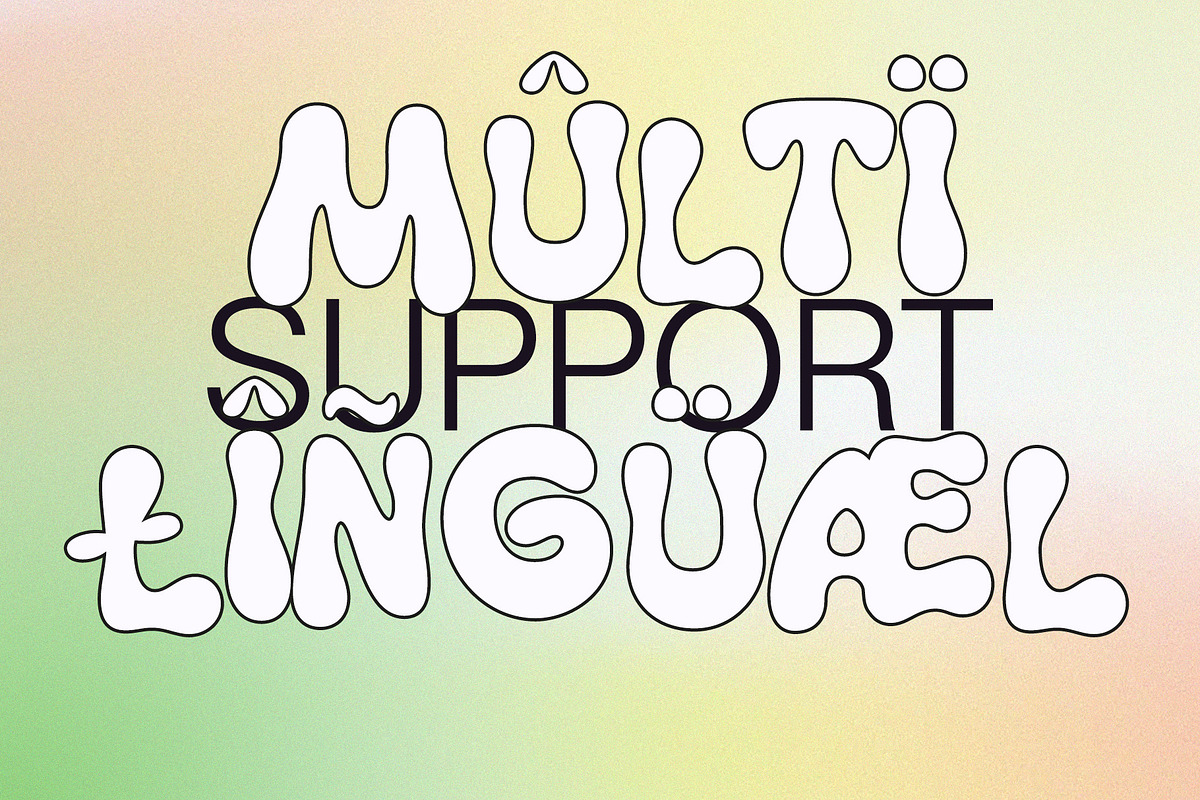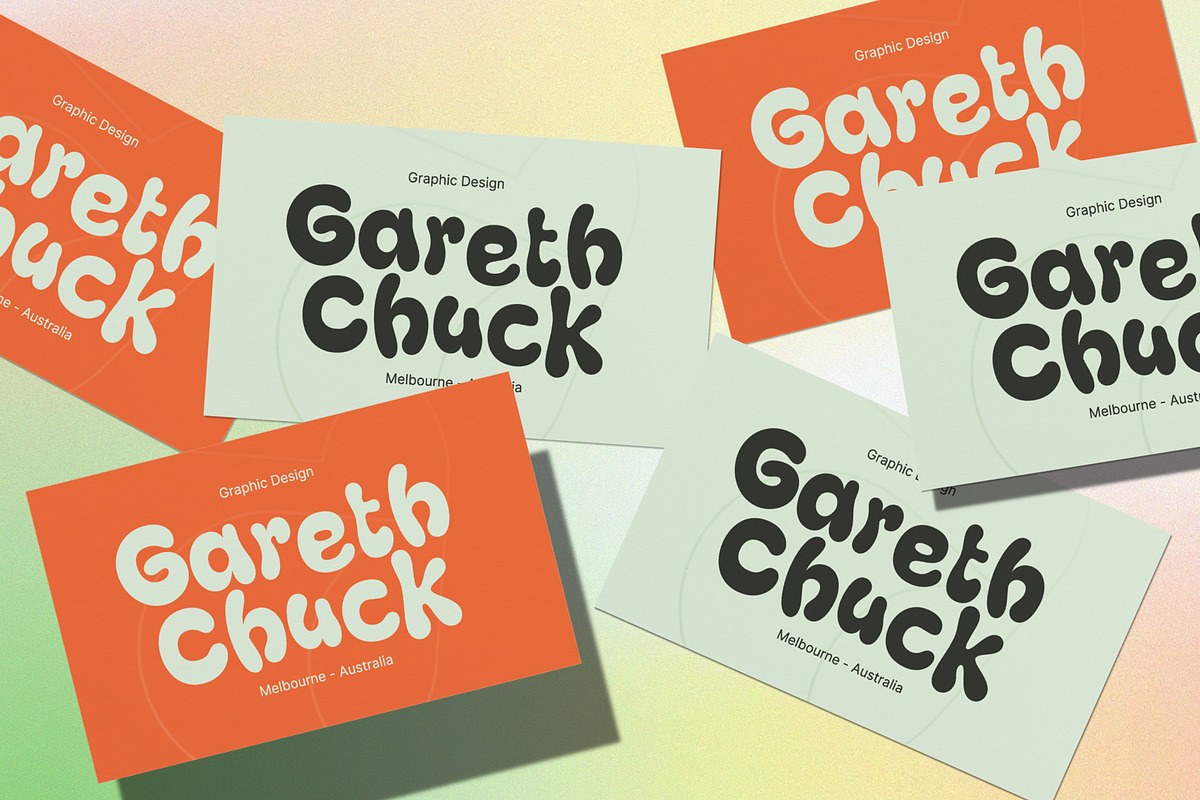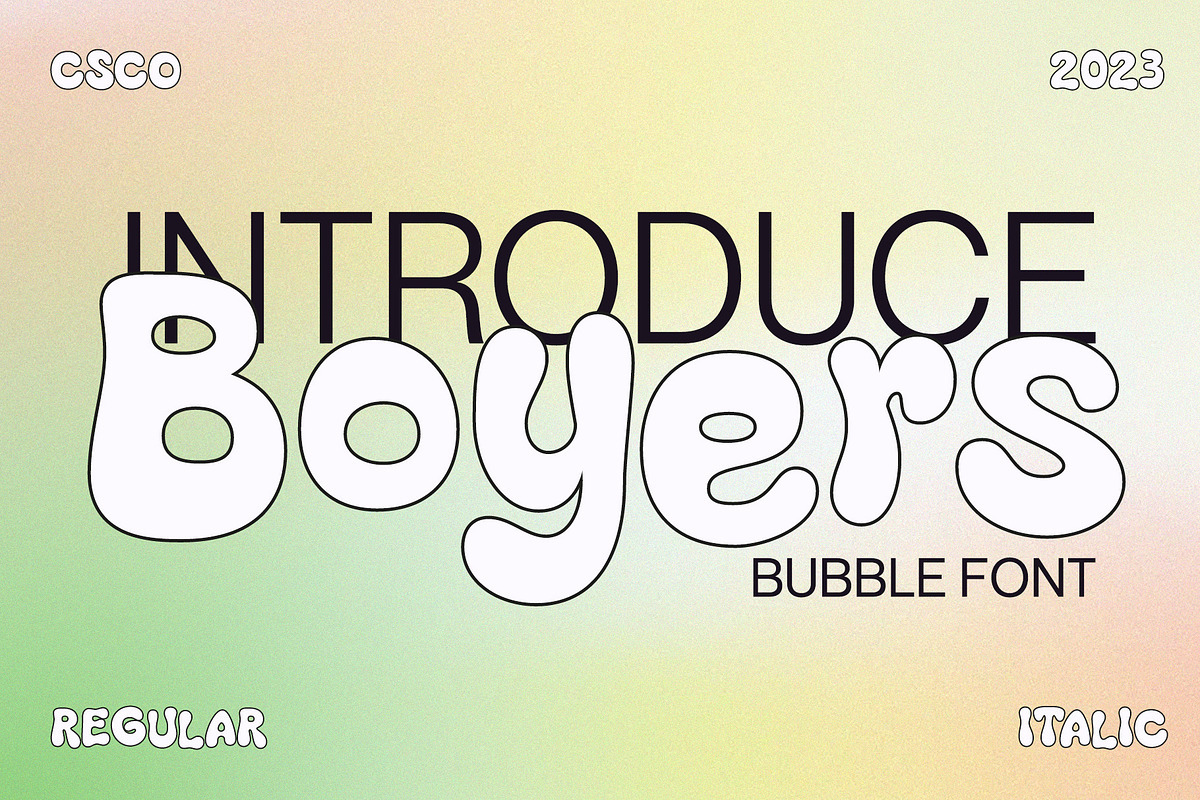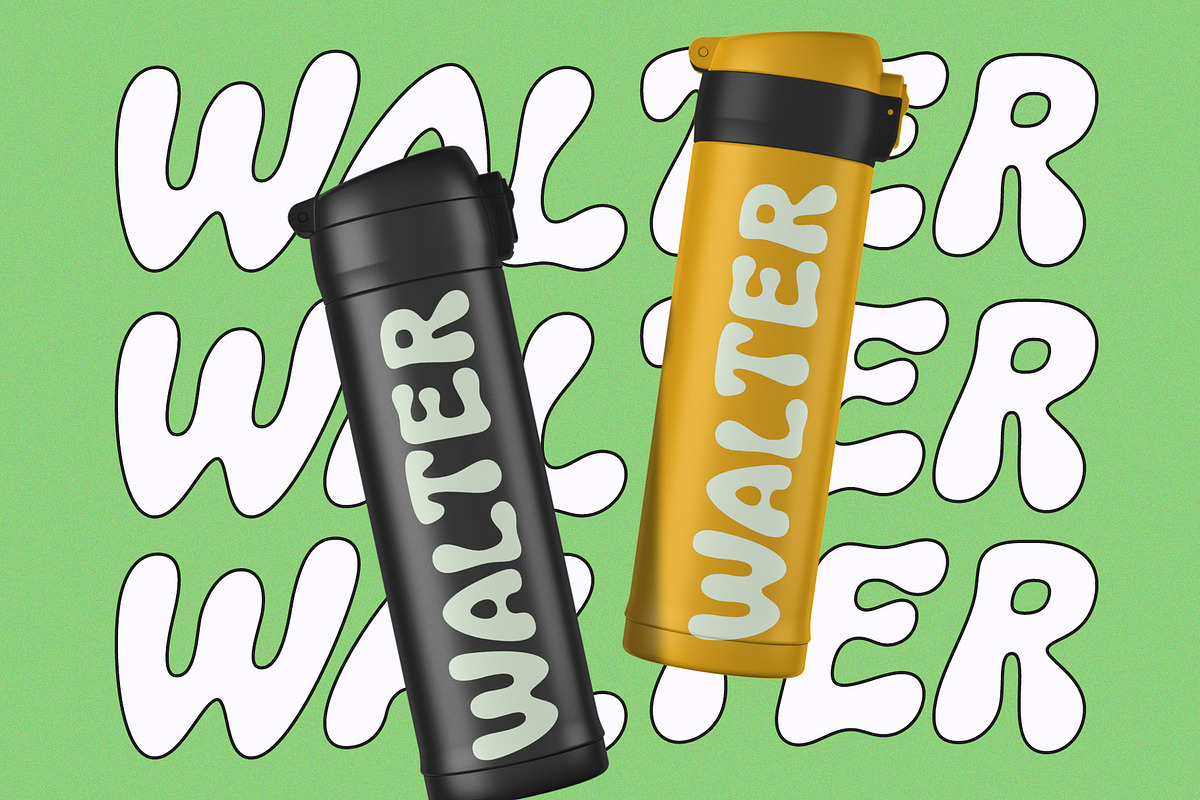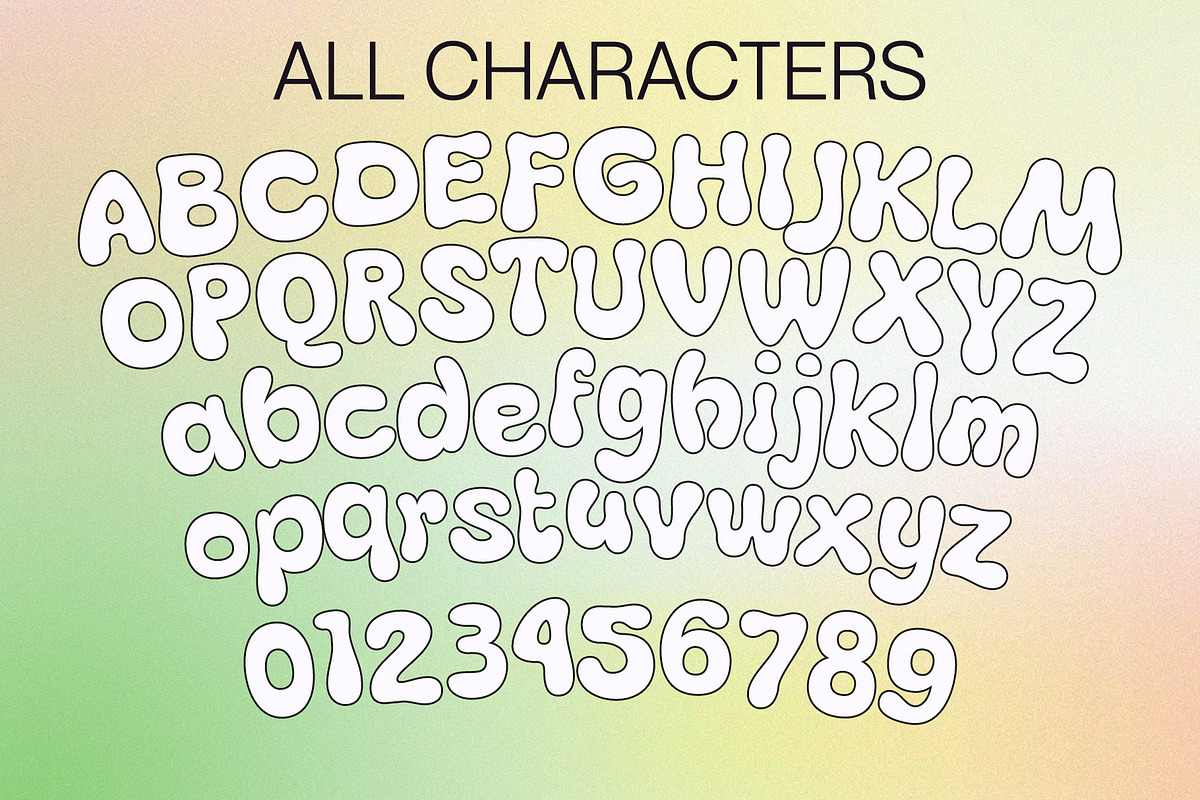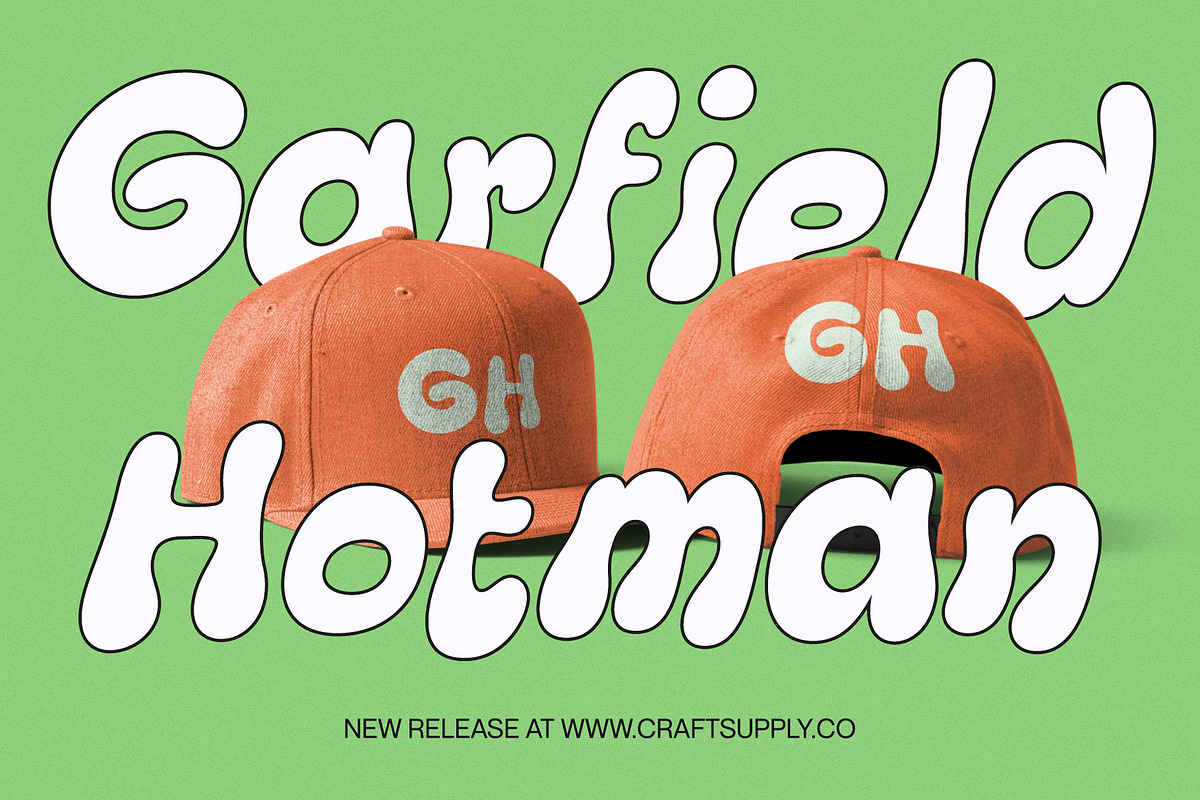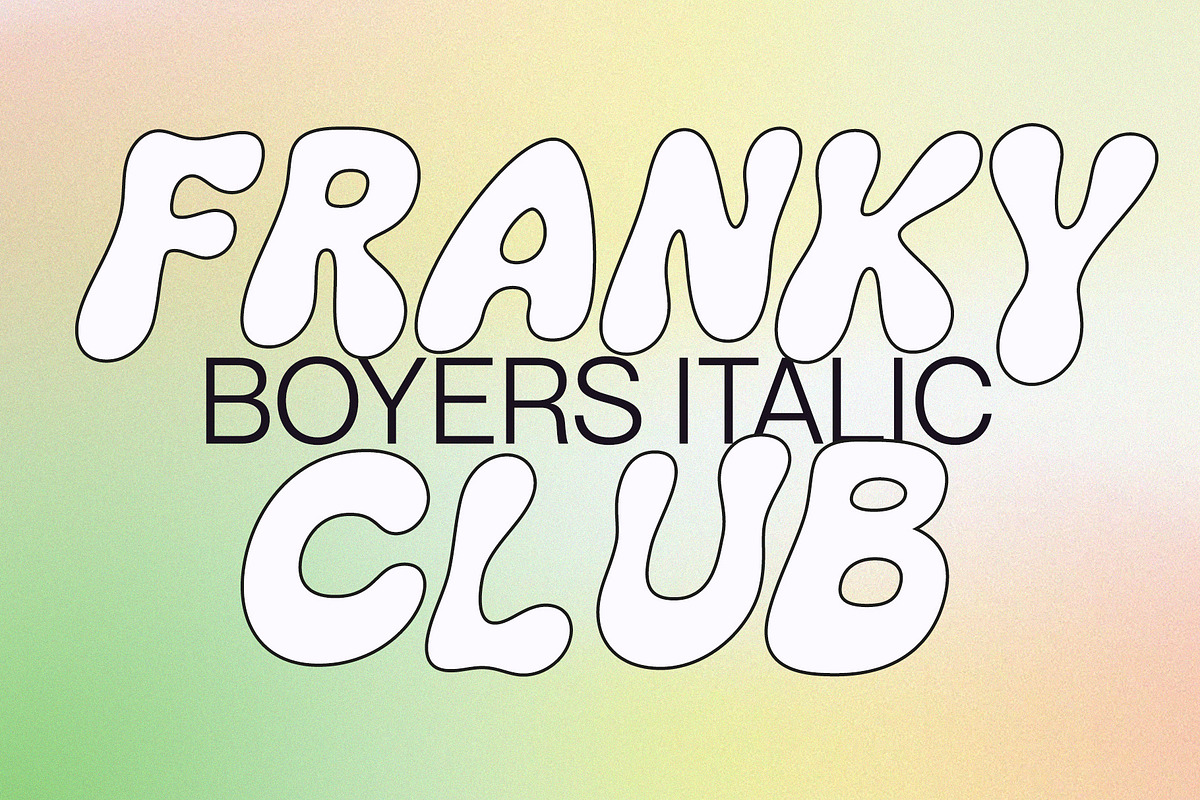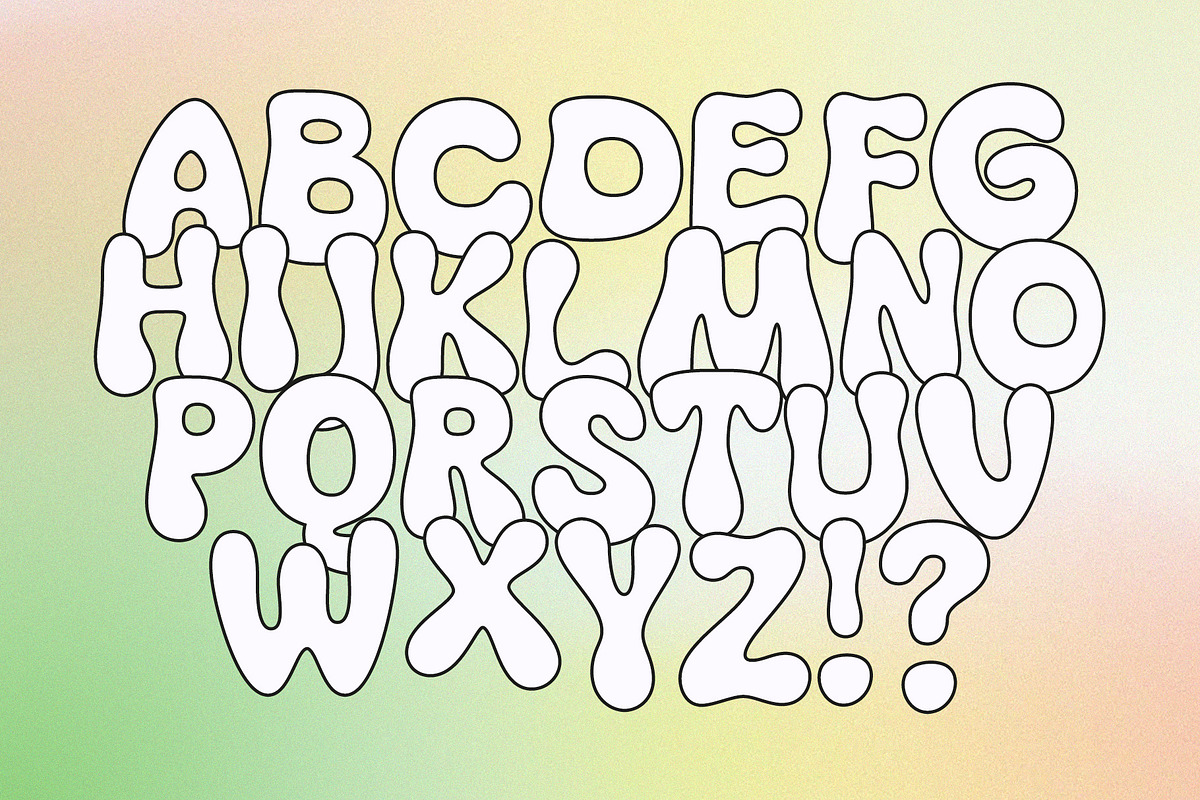
Boyers – Bubble Font
Boyers – The Adorable Bubble Font
Bubble-Inspired Cuteness
Boyers radiates the delightful embodiment of bubble-inspired cuteness, making it the perfect choice for all your display needs. Its playful charm captures the essence of balloons and whimsical awn, creating a font that’s both fun and endearing.
Imaginative Playfulness
Going beyond mere cuteness, Boyers showcases an imaginative playfulness that makes it a versatile choice for a wide range of creative projects. Whether you’re designing greeting cards, posters, or children’s book covers, Boyers adds a touch of whimsy to your creations.
Versatile for Various Creations
Boyers boasts impressive versatility that seamlessly enhances designs. No matter the project, Boyers brings a playful and charming flair, making your content engaging and incredibly memorable.
In Conclusion
In summary, Boyers – Bubble Font, with its inspiration drawn from balloons and awn, offers endless creative possibilities. Its playful versatility guarantees that your projects stand out, accessible to a diverse audience. With Boyers, your designs come to life with a charming, bubbly flair.
- Boyers Regular
- Boyers Italic